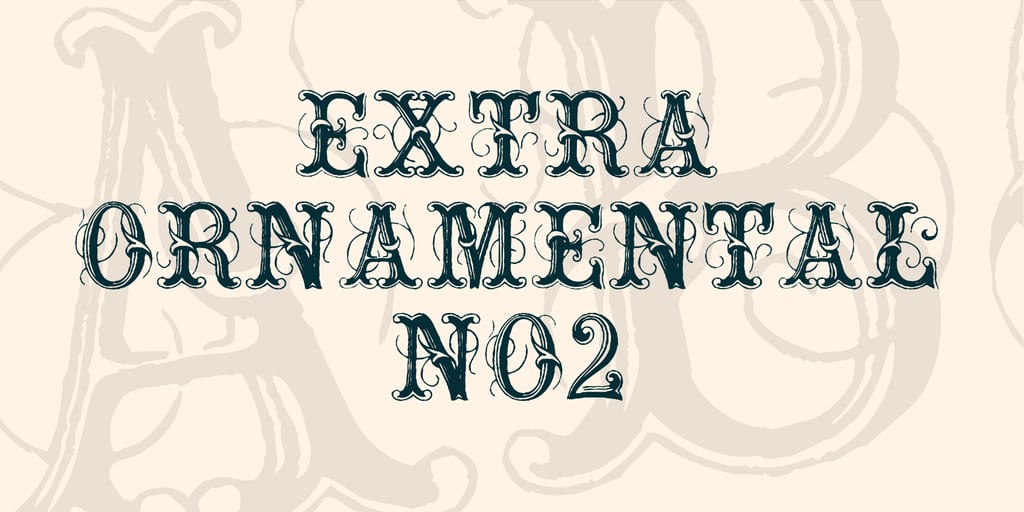
Best Free Tattoo Fonts Collection
1. Scriptina
One of the most elegant font for your body art is scriptina, it is one of the most popular designs which has around 5.7 million downloads till today and is doing extremely good. Scriptina is completely free for you use and the type face includes both the upper and lower case letters and includes a selection of few particular characters.
2. Original Gangsta Font
This font is for some tough guys, as it looks complete killer and crazy! This one has really a meaty look and is designed by the GP Type Foundry and is now available for your free download but restricted to only personal use and not commercial use.
3. Blessed Tattoo Font
This font is designed by Billy Argel, this font ranks in one of the most powerful tattoo fonts and is doing incredibly awesome. But again the drawback is that this design is restricted for only personal use and the commercial version of this font has some extra glyphs and can be purchased online.
4. True Love Tattoo Font
This tattoo was designed after an inspiration from old school tattoo. Davide Cariani the designer, started with this font as his first experiment. He included many glyphs, letters, dash out and the typography match the old school tattoo.
5. Extra Ornamental Tattoos (2)
Extra ornamental tattoos are made with an approach to look fancier to the people. This has some extra shades, swoops and lines which are drawing attention of the people. This font is mainly use by commercials only and rarely for private use.
6. Cute Tattoo Font
Cute Tattoo font is one of the sweetest font as its approach is very clear, sweet and with no extra shading. Since this font is used completely in the big capital letters as suggested, it is the best font for capital letters. The extra sub addition to every letter makes it more playful and appealing.
7. VTKS Deja Vu Font
This font is a mixture of both the capital letters and the upper case which makes it more appealing. It is even a combination of the old and new type of typography. Though the font is free for personal use and download, but the creators of these fonts do appreciate some donations and in case you use it, please make willing donations.
8. Rose Tattoo Font
This tattoo font is one of the most used as well as perfect tattoo font if you want to use for headings and titles. This font has a capital letters placed in a very creative way. It is one of the creative tattoo fonts you will ever see for personal download.
9. Spring Tattoo Font
spring tattoo font is font which mostly used to ink only and it is a combination of calligraphy and mostly capital letters which brings out the best in the font. This is also available for free download but restricted for personal use only.
10. Little Lord Tattoo Font
This font has almost 11 hundred versions of it by the designer Nick Curtis. He has kept 100 of them for free downloads and personal use only. Around 3million people have already downloaded the application and this font is doing incredibly awesome when it comes to variety.
11. Pentagon Tattoo Font
This font tattoo is completely free from traditional ways, it has more towards innovation. It is available for free download and and restricted to personal use only. Many people are already experimenting this font as it is funky and cool.
12. Precious Tattoo Font
This font is more towards italic side, it has many versions of it available for personal use and free download. The designer Blot Clutter design has tried to mix both the traditional and calligraphy to bring out the best.
13. Crux Tattoo Font
well this tattoo font is limited only till designs and not words. It is designed by a Spanish designer named Wood Cutter and brings out the best designs for free download and personal use.